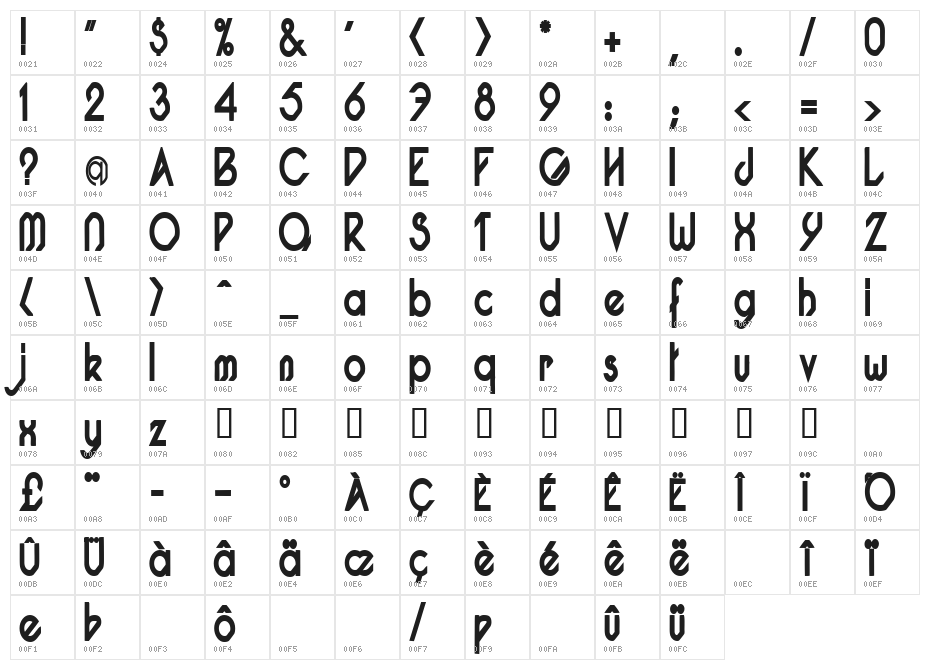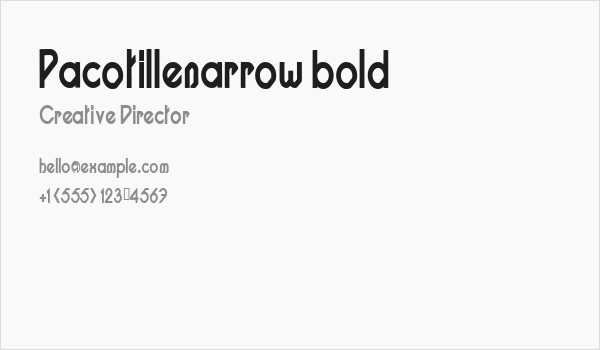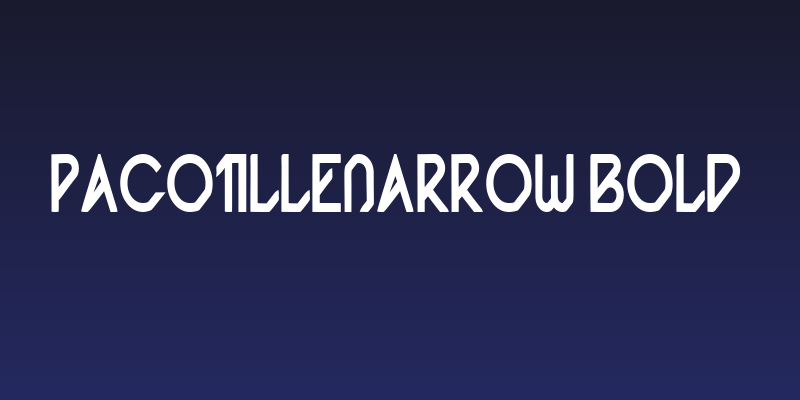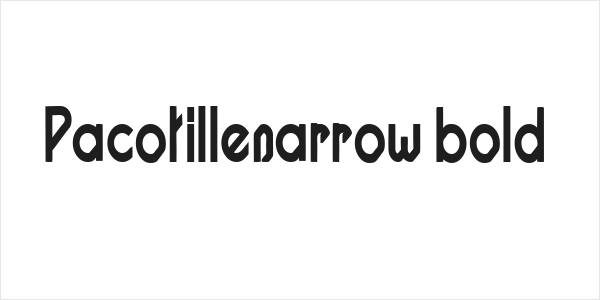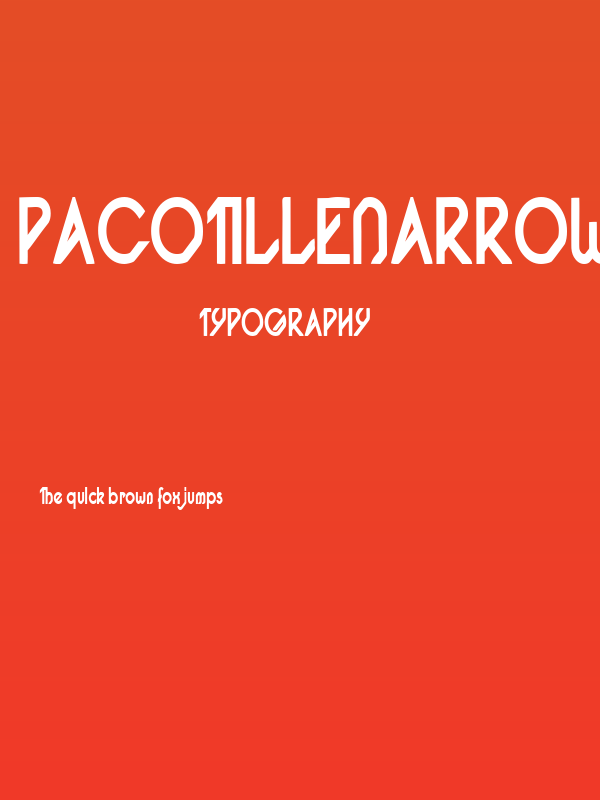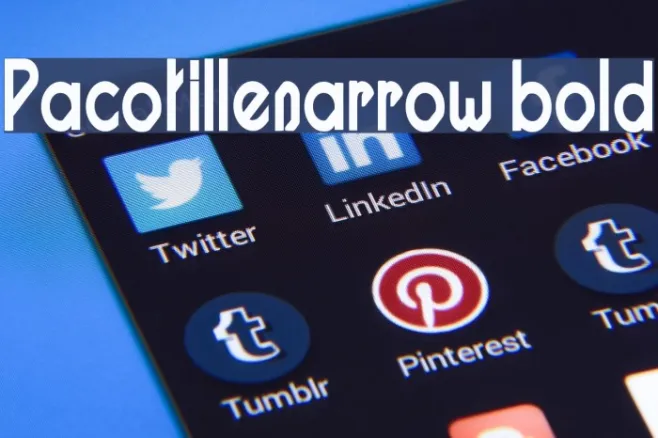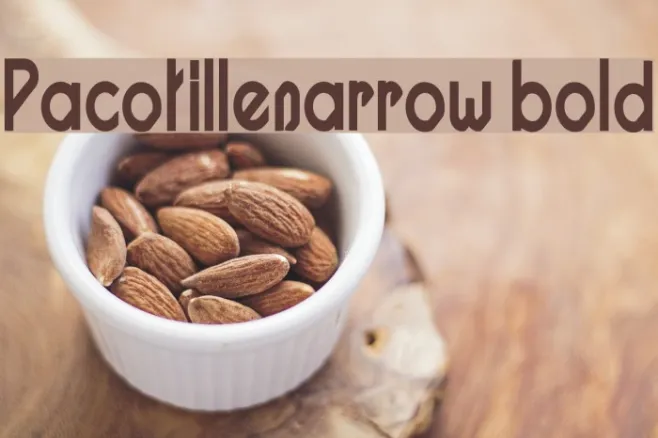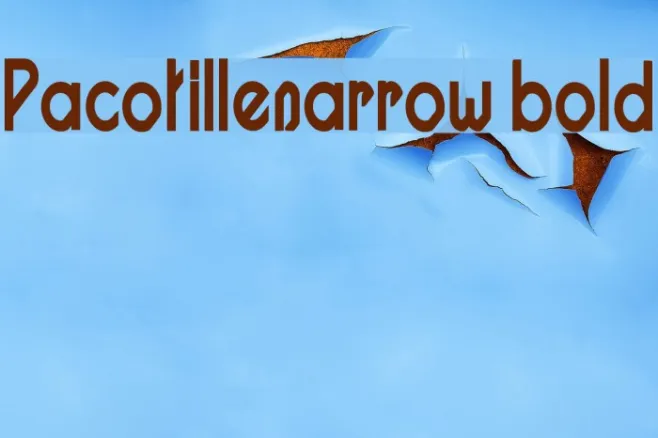
Pacotillenarrow bold Font
Pacotillenarrow bold Description
This font features a bold, geometric design with a distinctively modern and futuristic feel. The characters are narrow and elongated, with sharp angles and clean lines that create a sense of precision and clarity. The uppercase and lowercase letters maintain a consistent style, with unique elements such as the slanted crossbar on the 'A' and the curved tail on the 'Q'. Numbers and special characters follow the same design principles, ensuring uniformity across all glyphs. The overall appearance is striking and attention-grabbing, making it ideal for projects that require a bold statement.
| Proposed Projects | Ideal for branding, posters, headlines, and any design that requires a bold, modern look. |